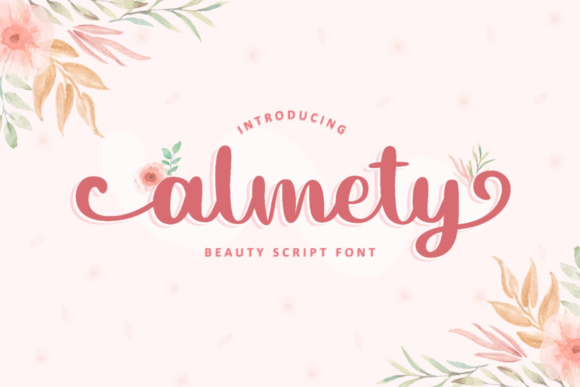
Behold! Almety Font - A Masterpiece of Penmanship for Your Creative Endeavors!
Dive into the world of Almety Font, a captivating, free-flowing script that exudes warmth, romance, and playfulness. Crafted by the talented hands of tlatoustype, Almety stands as a testament to the power of handwritten artistry, propelling your projects to the realm of true masterpieces.
Let your imagination soar as you explore the limitless possibilities of Almety, transforming your ideas into tangible works of art. Its effortlessly elegant style lends a touch of sophistication to any creation, while its jovial nature adds a spark of cheer to your designs.
Picture this: a wanted poster adorned with Almety's distinctive strokes, capturing the essence of a timeless Western tale. The bold, sweeping lines demand attention, inviting onlookers to unravel the secrets of the old frontier.
Or envision the charm of a vintage love letter, penned with Almety's delicate curves and flourishes. Its romantic essence sets the stage for tales of passion and devotion, making it the perfect font for expressing your heartfelt sentiments.
Step into the realm of magic and wonder with Almety, where fairy tales come alive and dreams take flight. Its whimsical nature lends an air of enchantment to children's books and fantasy-themed designs, inviting readers to embark on captivating adventures.
Open the doors to creativity and let Almety guide you through a journey of self-expression. Whether you're a seasoned designer or just beginning your artistic exploration, this versatile font will elevate your projects to new heights.
With Almety at your fingertips, you'll discover a font that not only captivates the eye but also stirs the emotions. Its versatility knows no bounds, empowering you to create designs that resonate with your audience, leaving an unforgettable impact.
Embrace the beauty of Almety Font and watch as your creative visions flourish into extraordinary realities. Let its enchanting strokes weave their magic, transforming your designs into works of art that captivate and inspire.